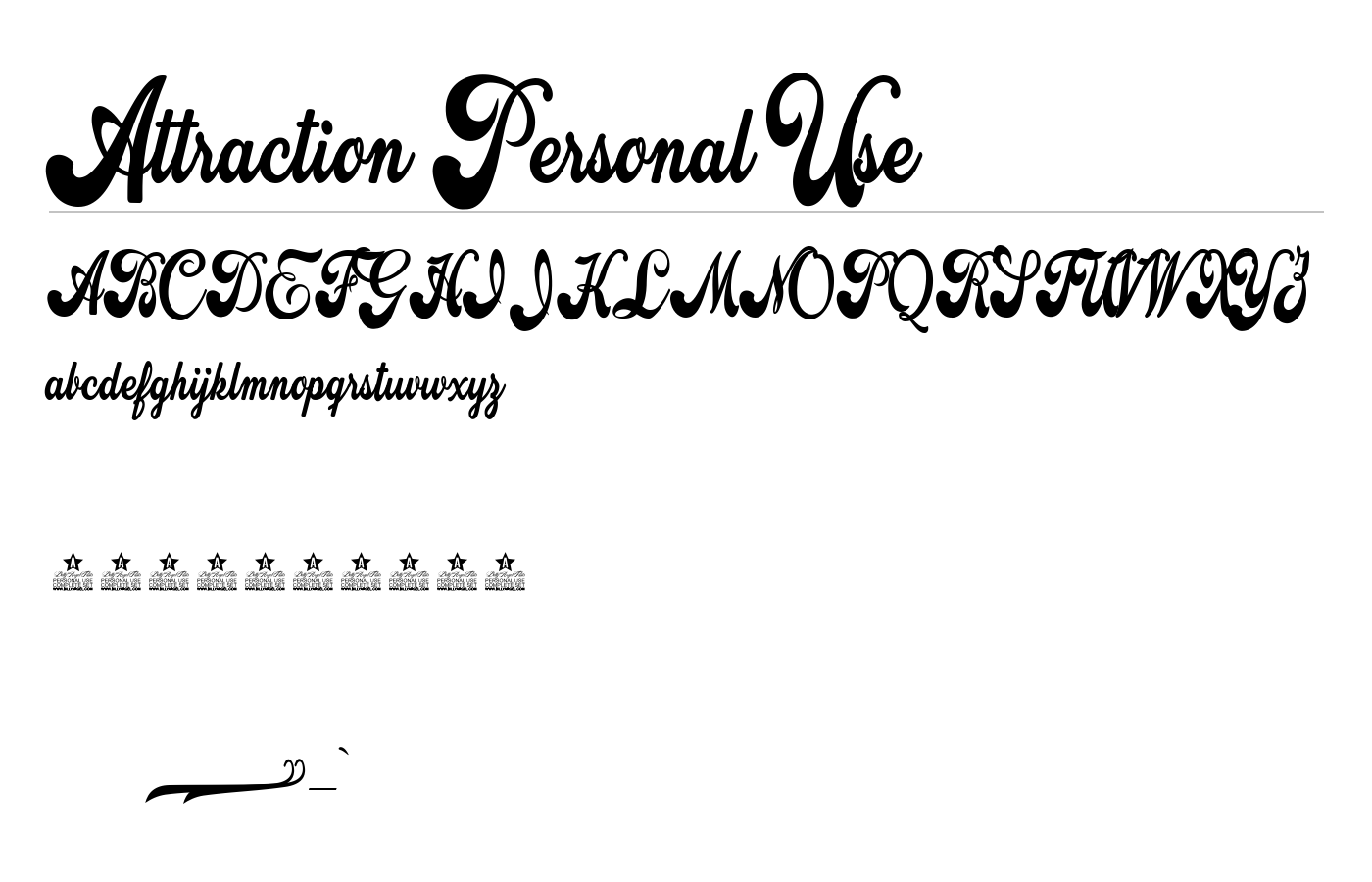
Attraction Personal Use is a bold, script-style font with elegant and flowing letterforms that combine thick strokes with delicate curves, giving it a charming, vintage feel. Its strong presence and decorative uppercase letters make it perfect for eye-catching logos, invitations, and branding that require a sophisticated yet playful touch. This font works well in designs where personality and style are key, adding a warm and inviting character to headlines and display text.
Attraction Personal Use Font
About Attraction Personal Use Font
| Font family | Attraction Personal Use Font |